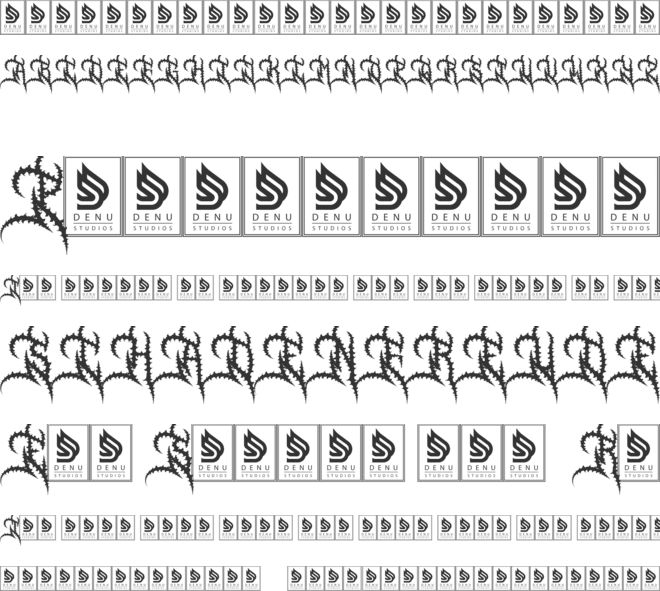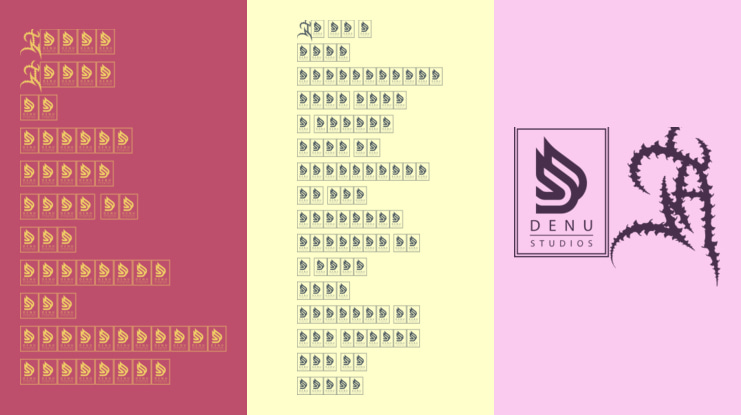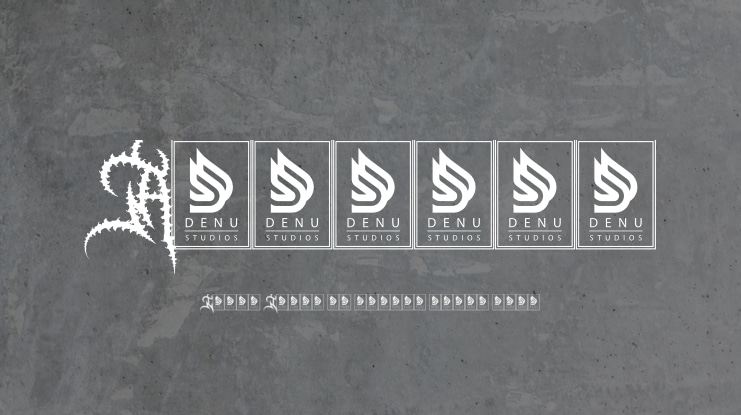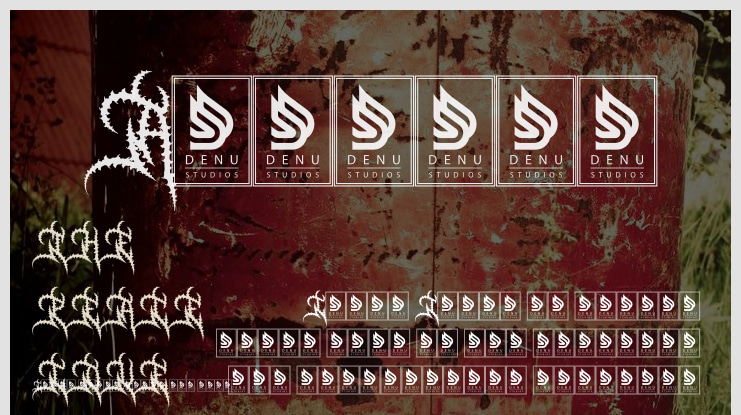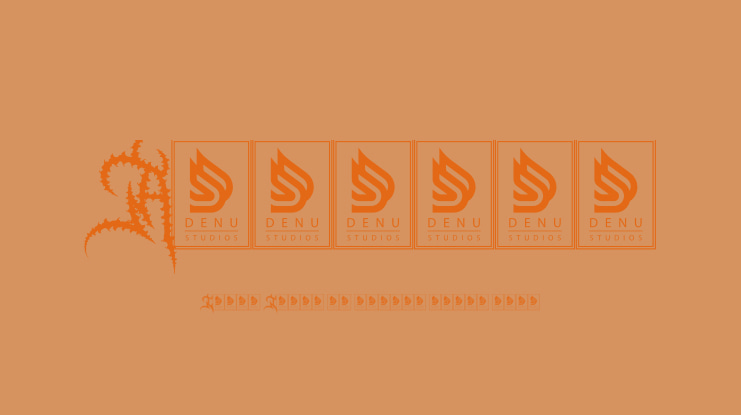
**Asunder | Death Metal Font**
The Asunder Death Metal Font is perfect for enhancing a variety of projects such as logos, branding, homeware designs, product packaging, mugs, quotes, posters, shopping bags, t-shirts, book covers, name cards, invitation cards, greeting cards, labels, photography, watermarks, special events, and any other projects that require a unique death metal aesthetic.